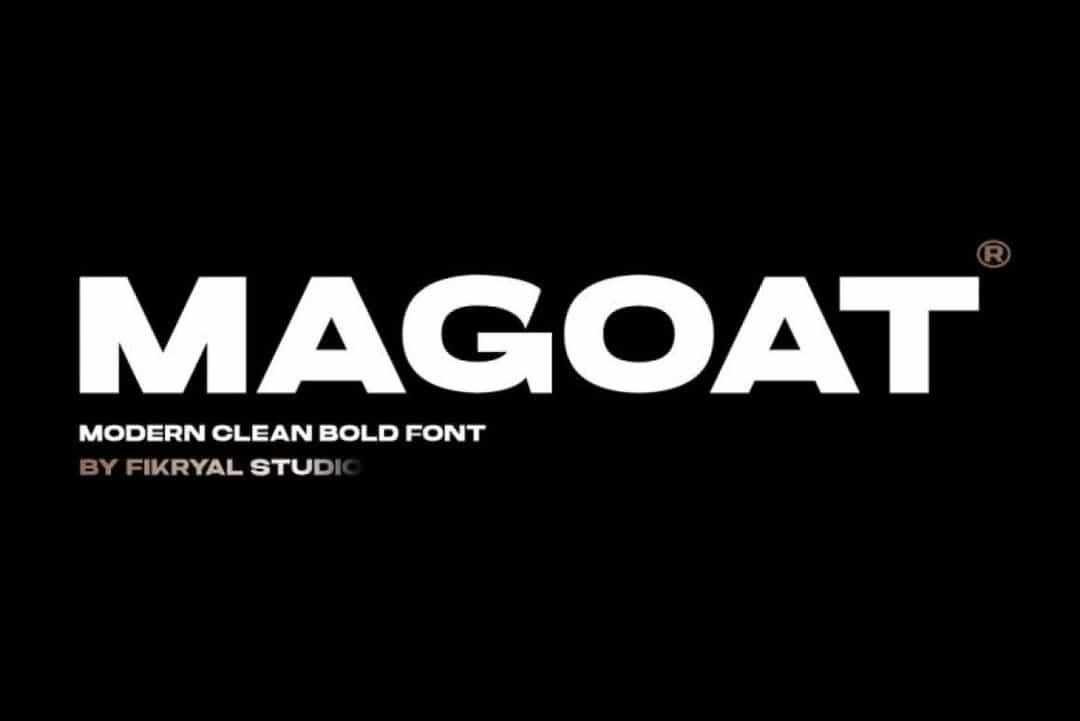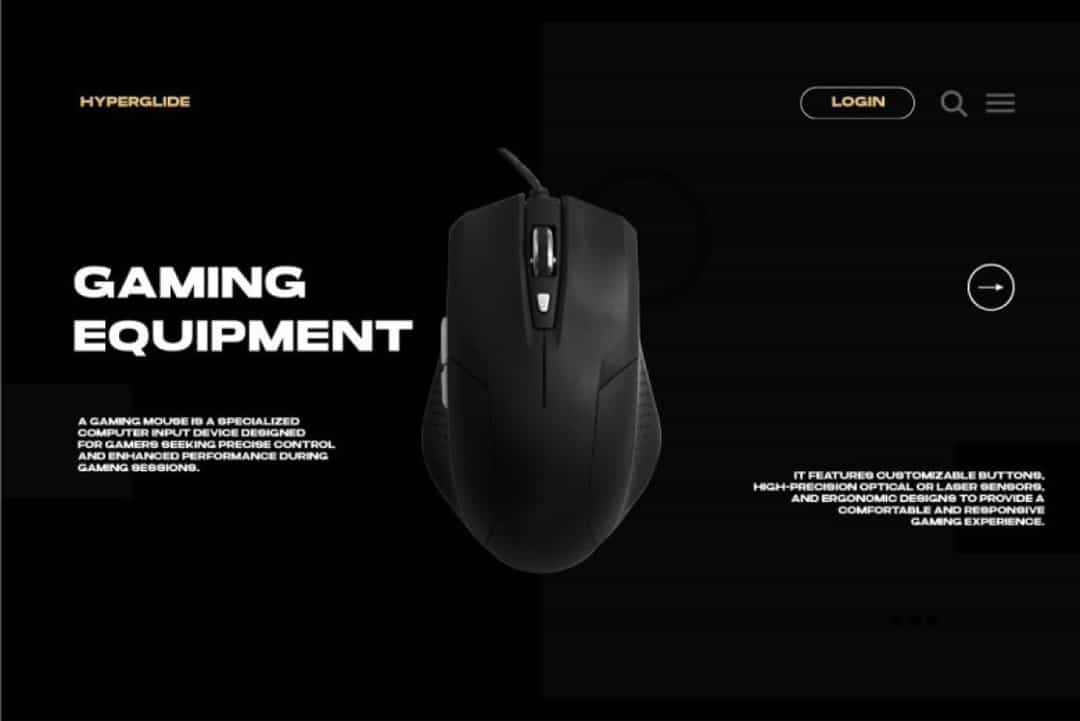
Magoat Modern and Clean Bold font is an excellent way to bring modernity and boldness into graphic design work. Featuring its distinct All Caps style, Magoat draws attention with clarity and confidence; each character created precisely highlights Magoat’s modernity and cleanliness that sets this font apart.